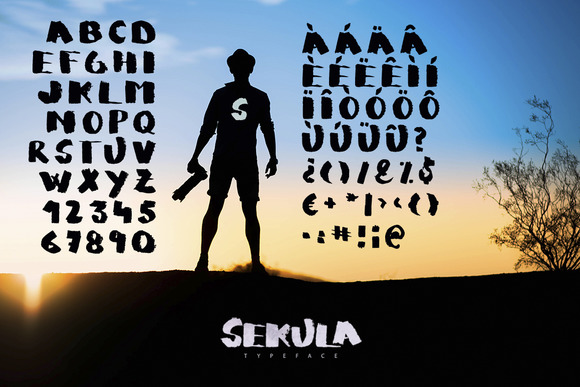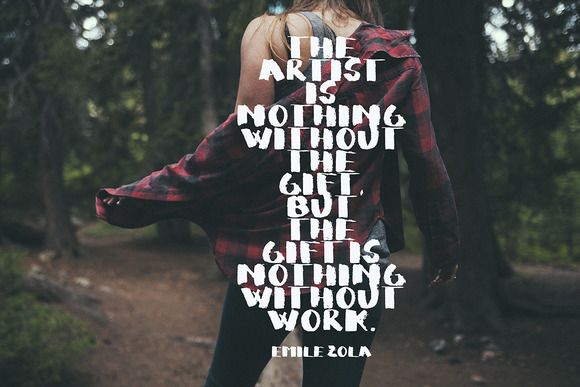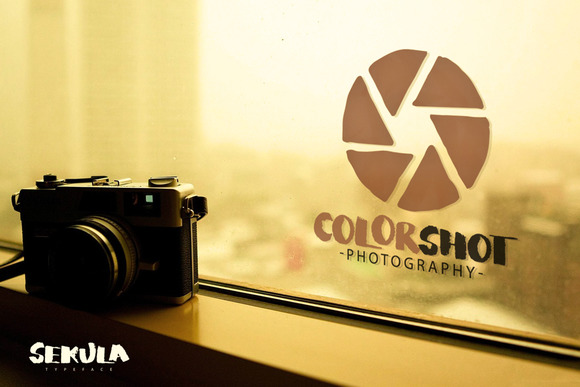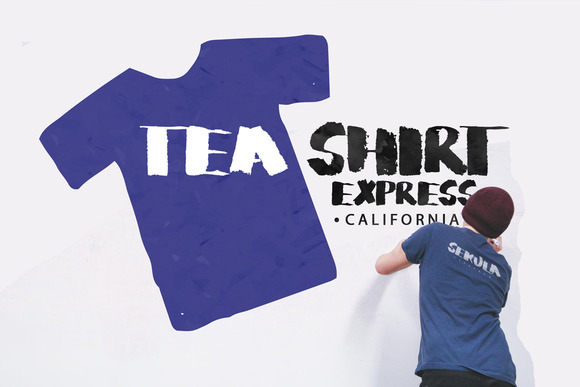
Introduction to Sekula Font
Remember that moment when you’re working on a creative project and you’re struggling to find the perfect font to match your vision? It’s like trying to find a needle in a haystack, but with letters. But what if I told you that there’s a font that can change the game for your design? Say hello to the Sekula Font, a stunning hand-painted font created by Pere Esquerrà that’s about to become your new best friend.
Key Features of Sekula Font
- High-quality design: Sekula Font offers a unique and elegant design that is perfect for creative projects, with a transparent background that allows for seamless integration with any design resource.
- Resolution-independent: Sekula Font is designed to be resolution-independent, allowing it to look great at any size or resolution.
- Unique characteristics: The font features a distinctive, hand-drawn feel that sets it apart from other fonts in its class.
- Perfect for creative projects: Sekula Font is ideal for use in creative projects, such as graphic design, typography, and digital art.
Honest Review: Sekula Font
One of the standout features of the Sekula Font is its unique design, which adds a touch of elegance to any creative project. The font’s transparent background also makes it super versatile and easy to use.
Here are some of the things that work well with the Sekula Font:
- Unique design aesthetic
- High quality
- Not ideal for large block of text
- Some users may find the design too ornate
Sekula Font
Tips for Getting the Most Out of Sekula Font